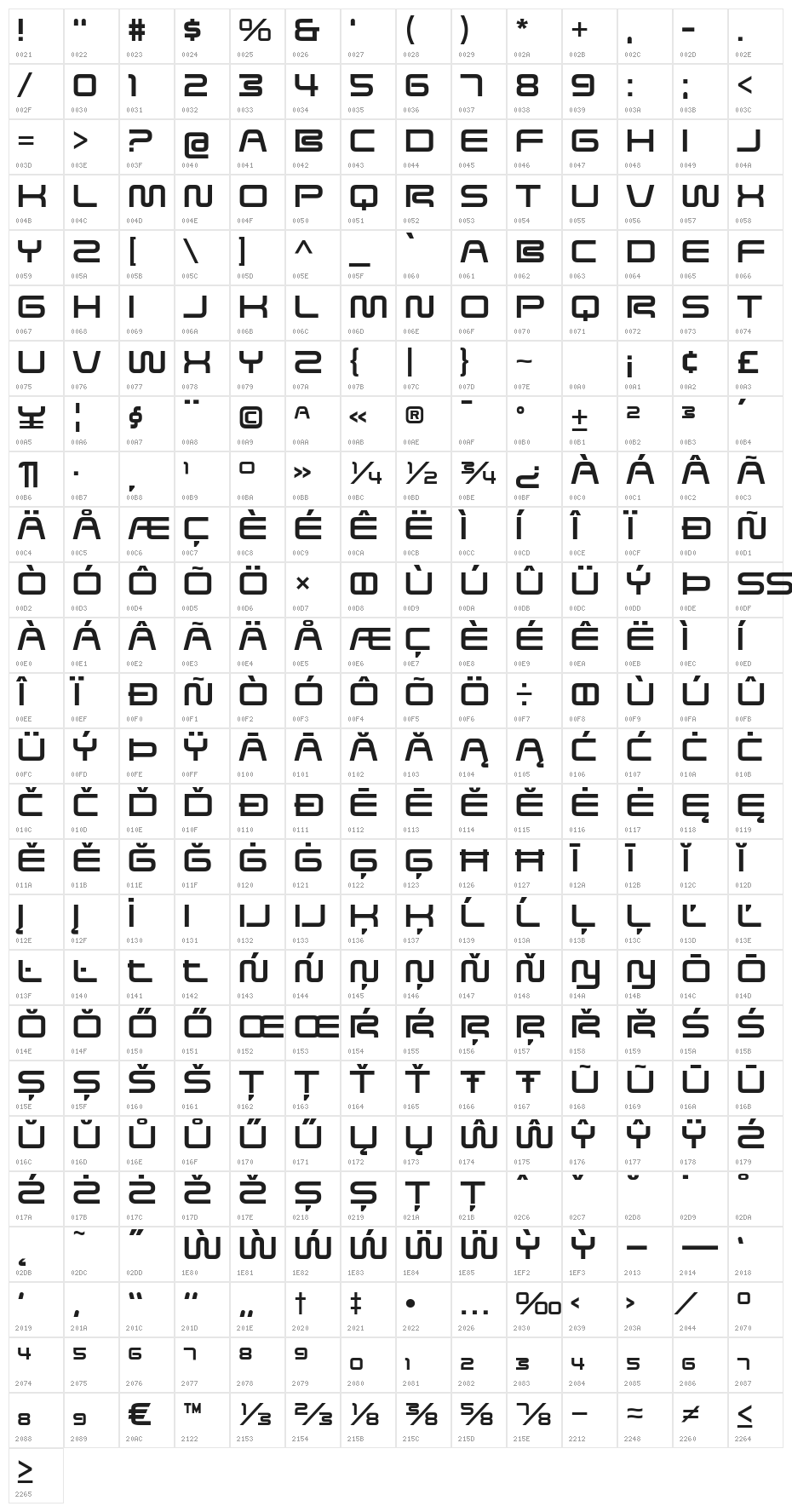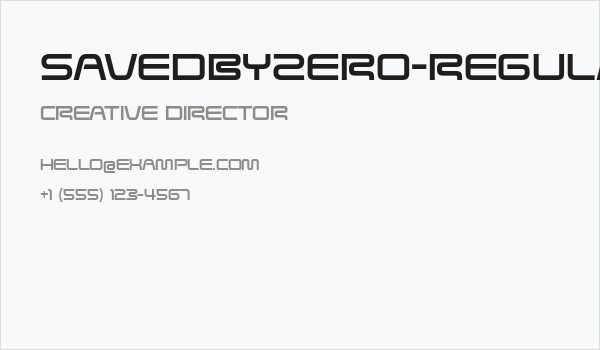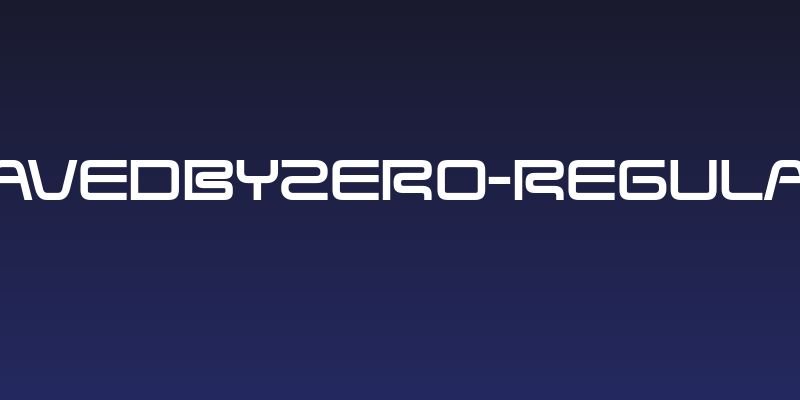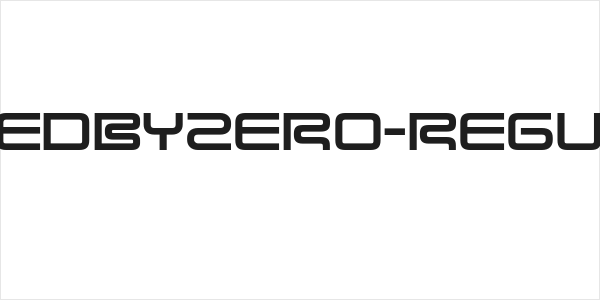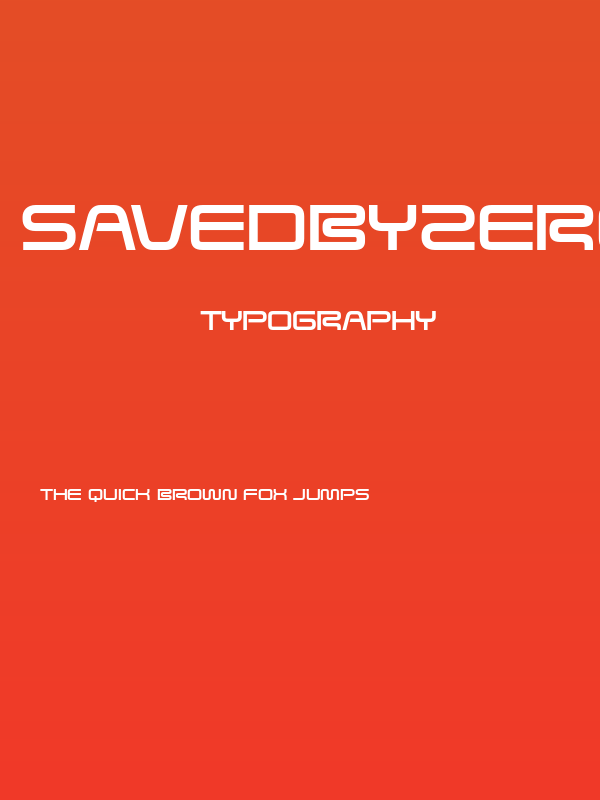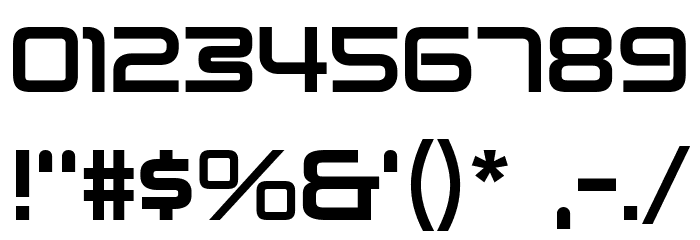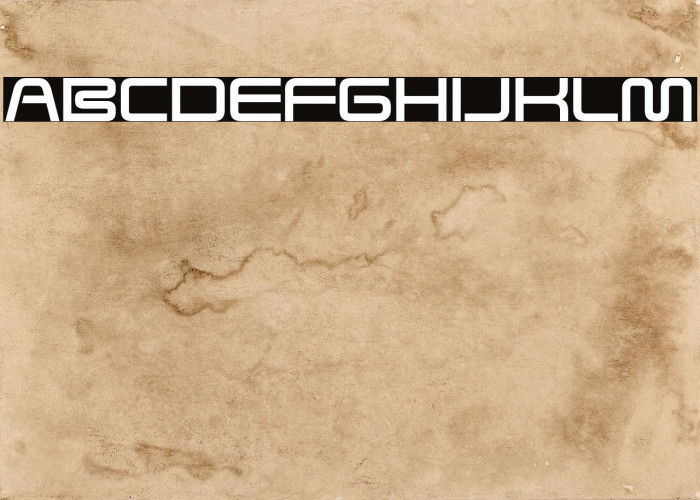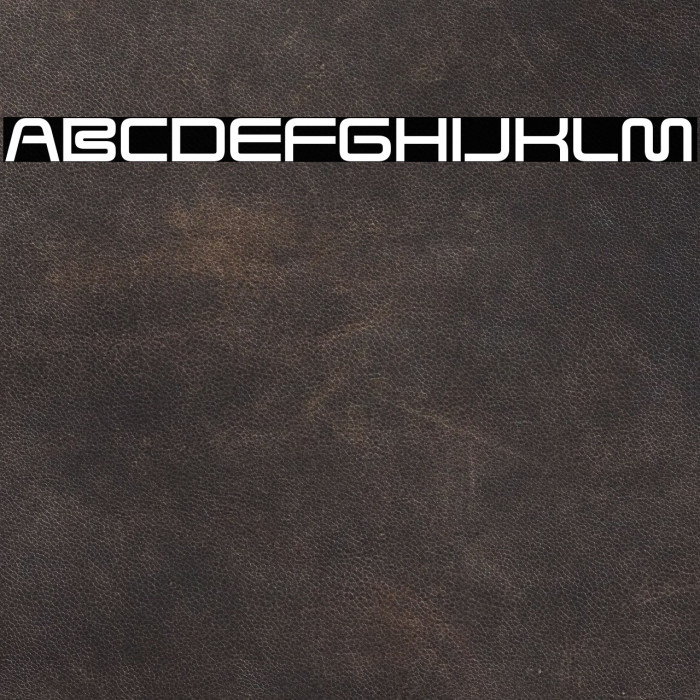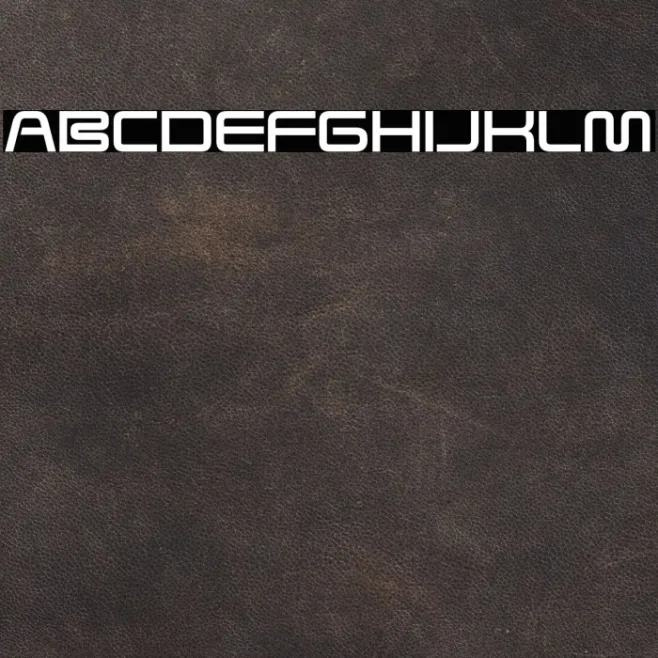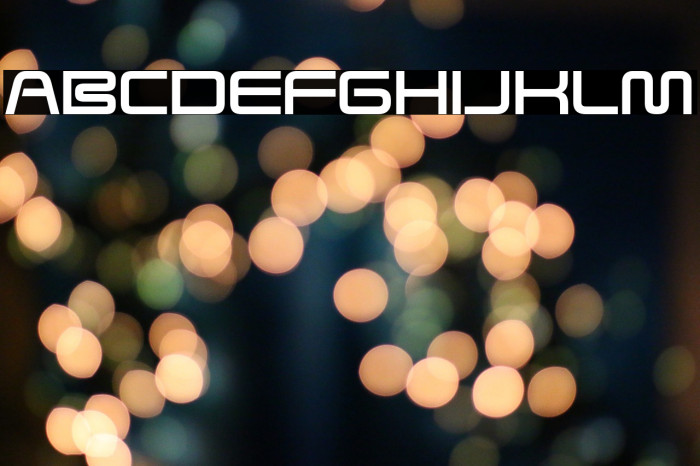
SavedByZero-Regular Font
SavedByZero-Regular Description
This font features a modern, geometric design with a distinct futuristic appeal. The characters are constructed with clean lines and rounded edges, creating a sleek and contemporary look. The uppercase letters are uniform in height, while the lowercase letters maintain a consistent style, enhancing readability. The numerals are bold and clear, making them suitable for various applications. Special characters are designed to match the overall aesthetic, ensuring a cohesive appearance across all text elements. This font is ideal for projects that require a modern and tech-savvy feel.
| Use Case | Headlines, Logos, Digital Interfaces |
| Proposed Projects | Ideal for tech branding, digital interfaces, modern advertising, and futuristic designs. |